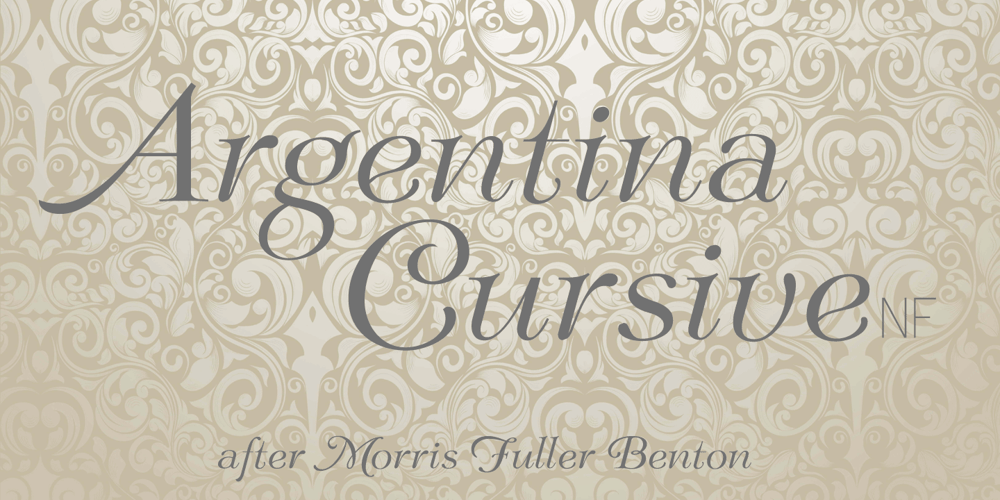
Argentina Cursive NF Font Family was designed by published by Nick’s Fonts. Argentina Cursive NF contains 1 styles and family package options. Here’s an elegant addition to Argentina NF, carefully crafted after the pattern provided by master type designer Morris Fuller Benton in 1919. Both versions of this font support the Latin 1252, Central European 1250, Turkish 1254 and Baltic 1257 codepages.